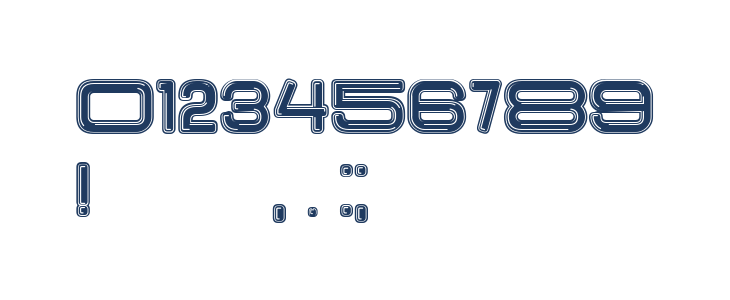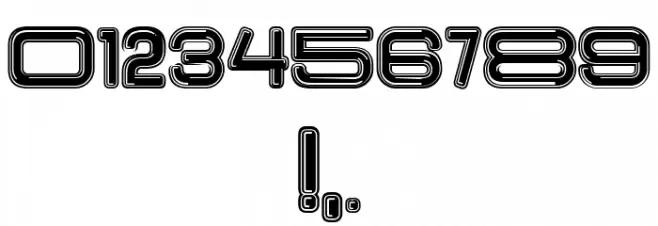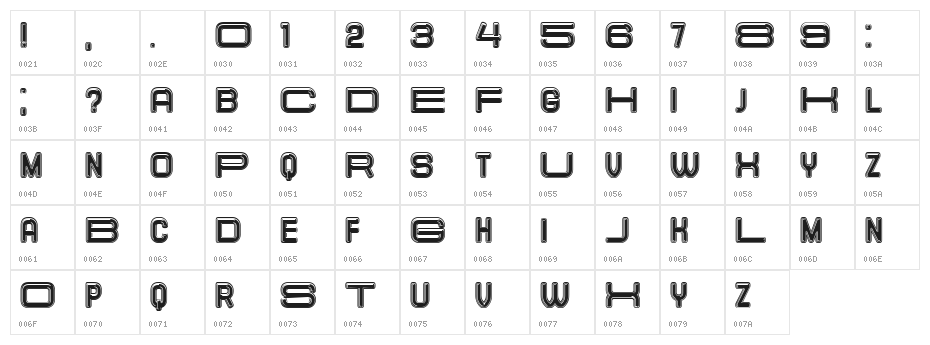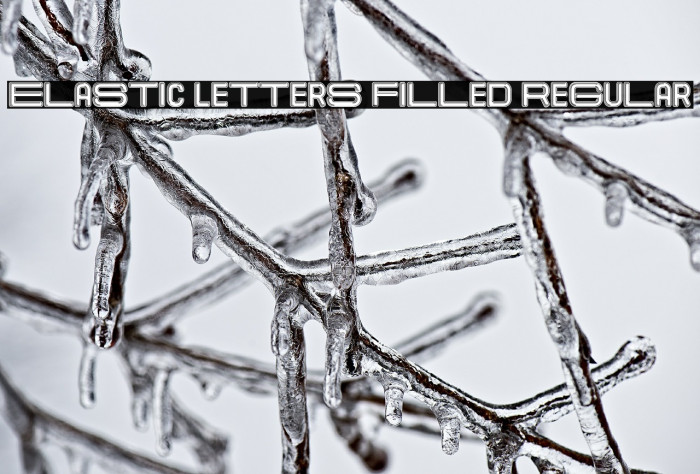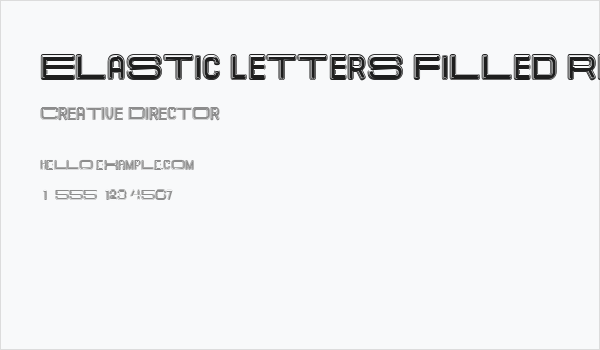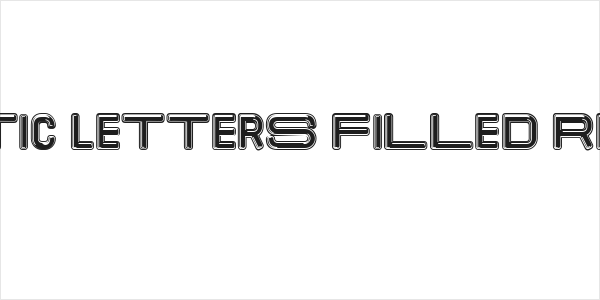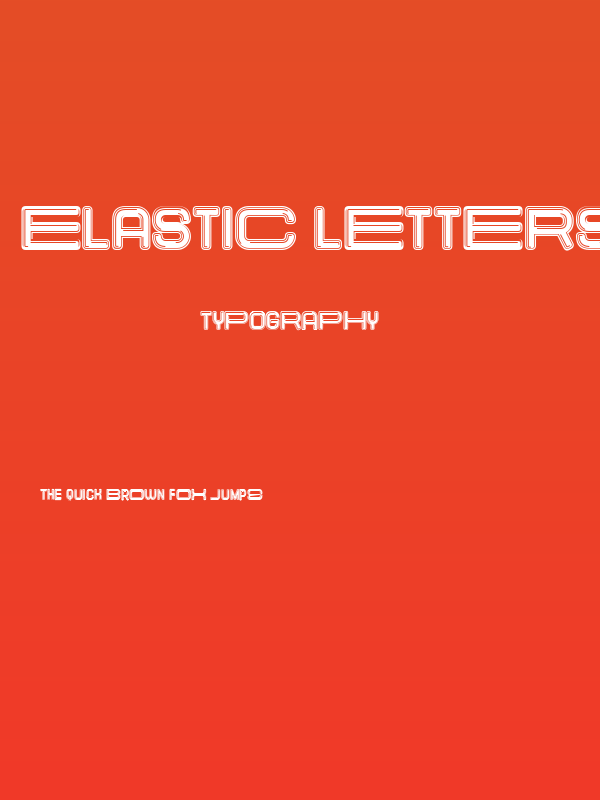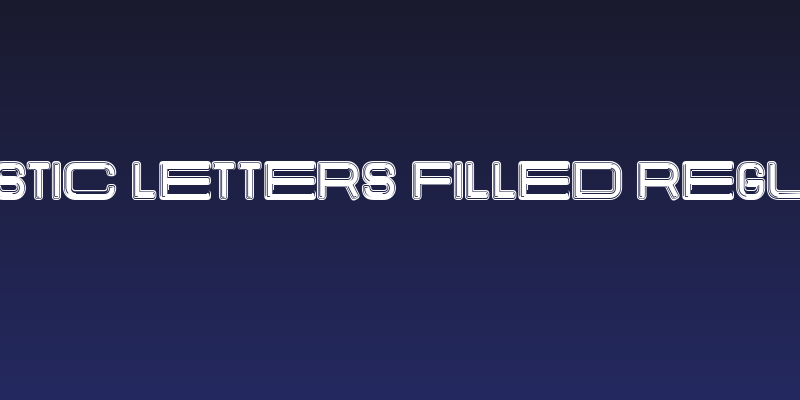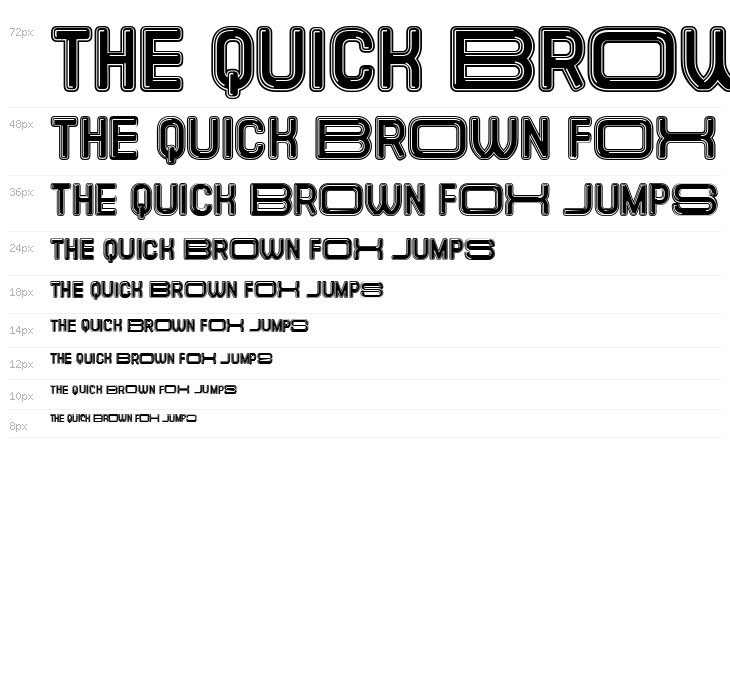
Elastic Letters Filled Regular Font
Elastic Letters Filled Regular Description
This font features a bold, geometric design with a distinct three-dimensional effect created by its layered, filled structure. The characters are uppercase and numerals, with a unique outline that gives a sense of depth and elasticity. The style is modern and eye-catching, making it suitable for attention-grabbing designs. The spacing between characters is consistent, providing a balanced appearance. The font's boldness and distinctive style make it ideal for creative projects that require a strong visual impact.